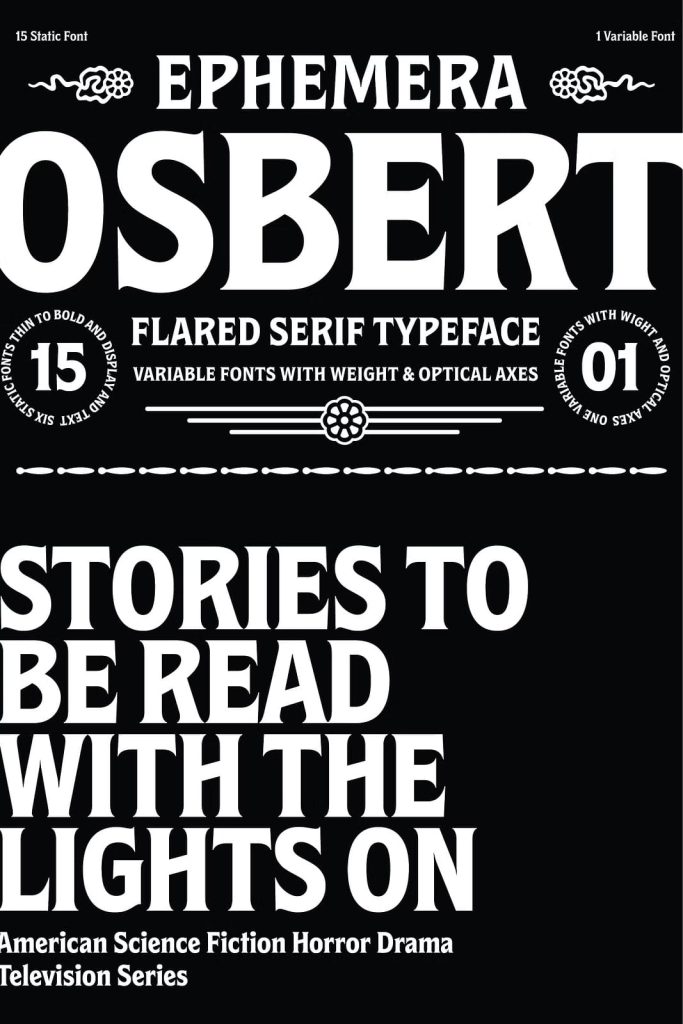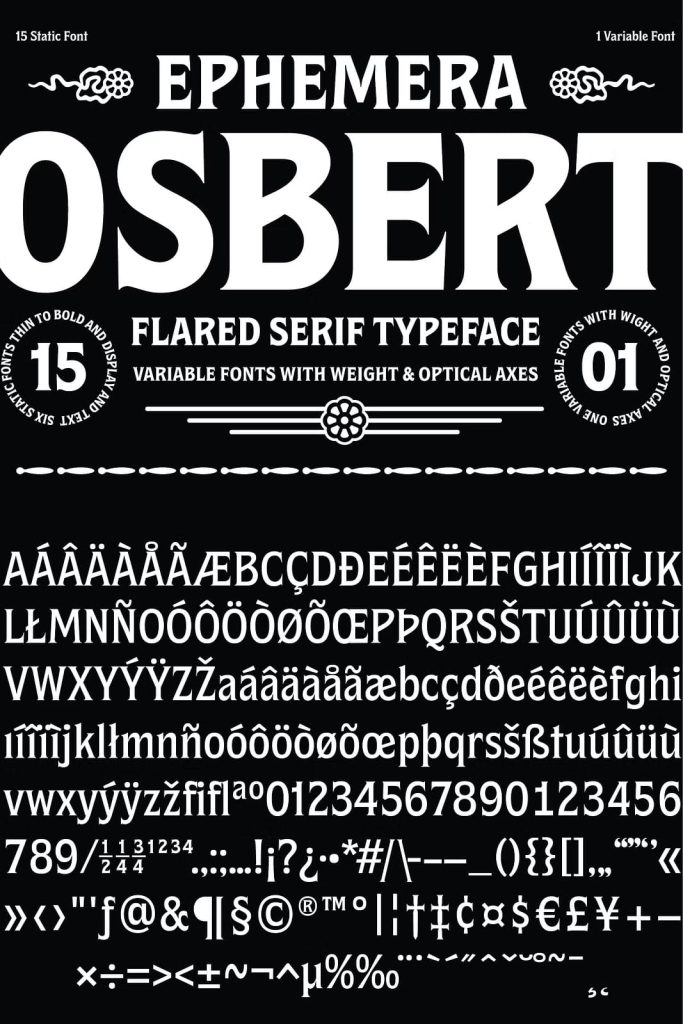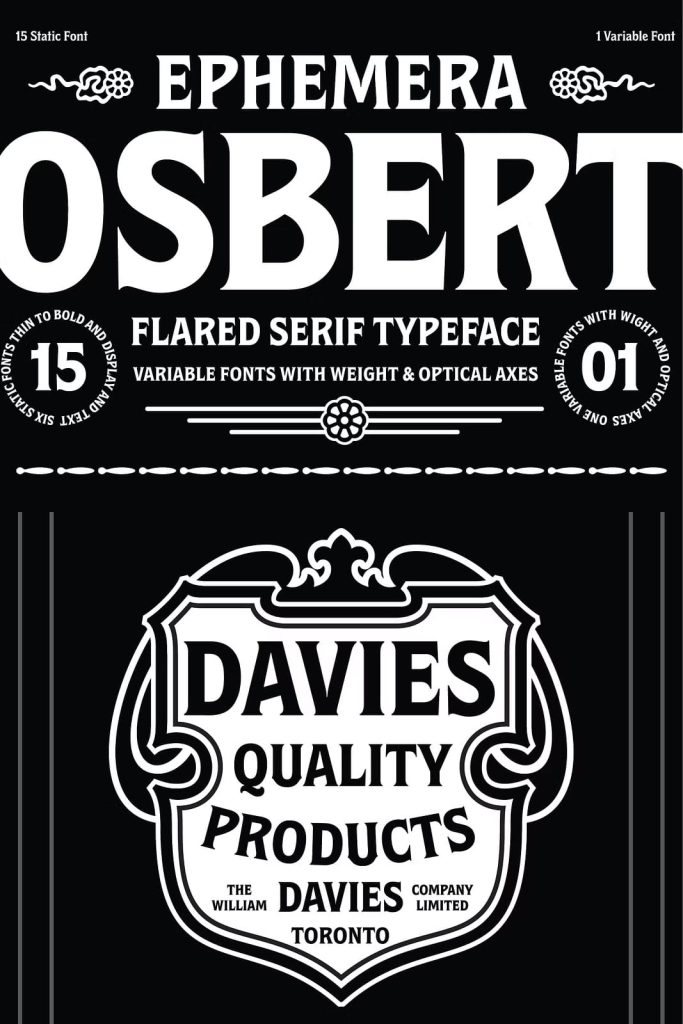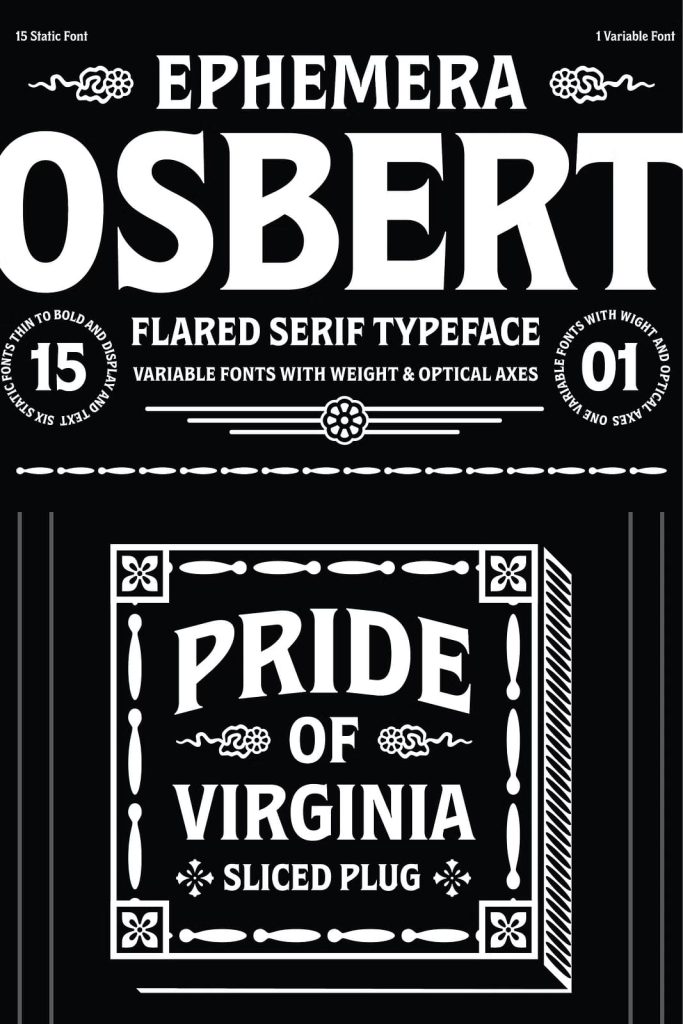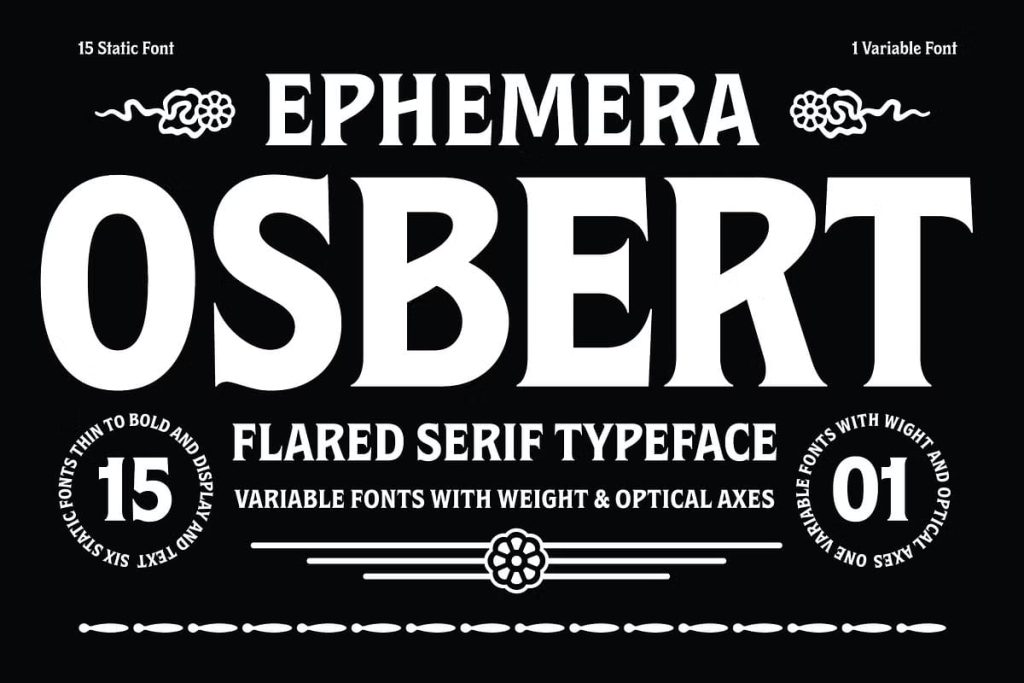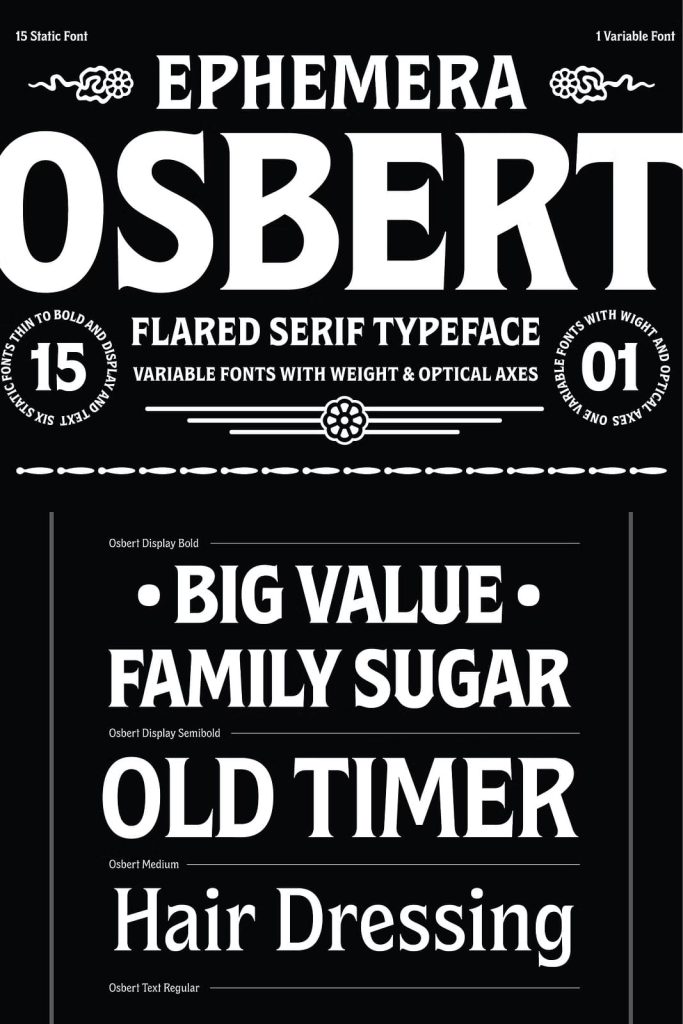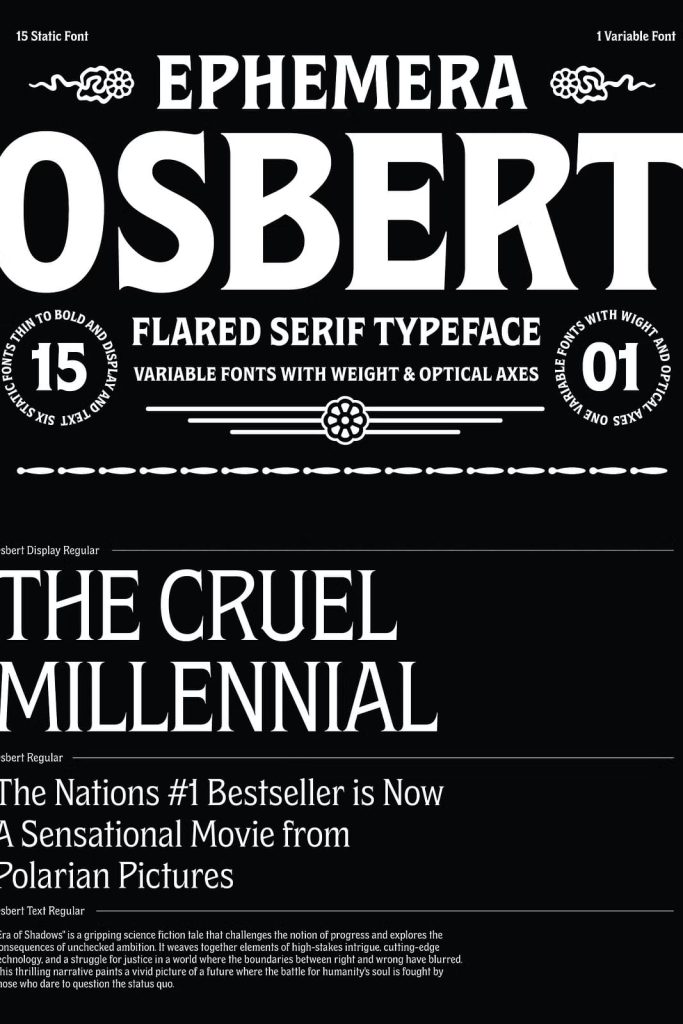
Introducing Osbert: A Font That Seamlessly Blends Vintage Charm with Modern Flair
Discover Osbert, a font that effortlessly combines vintage charm with a contemporary twist. Imagine the nostalgic allure of old tin labels, now reimagined with a fresh edge. With its strong flared serifs and unique diagonal bars, Osbert adds a touch of modernity to classic aesthetics.
Osbert offers an impressive selection of 15 static fonts and a versatile variable font, providing a plethora of creative possibilities for designers. With three Optical Size – text, regular, and display – achieving the perfect balance in your designs has never been more straightforward. Whether you’re working on typographic badges, editorial layouts, logos, branding, posters, prints, signage, or more, let Osbert infuse your project with a relaxed, timeless vibe.